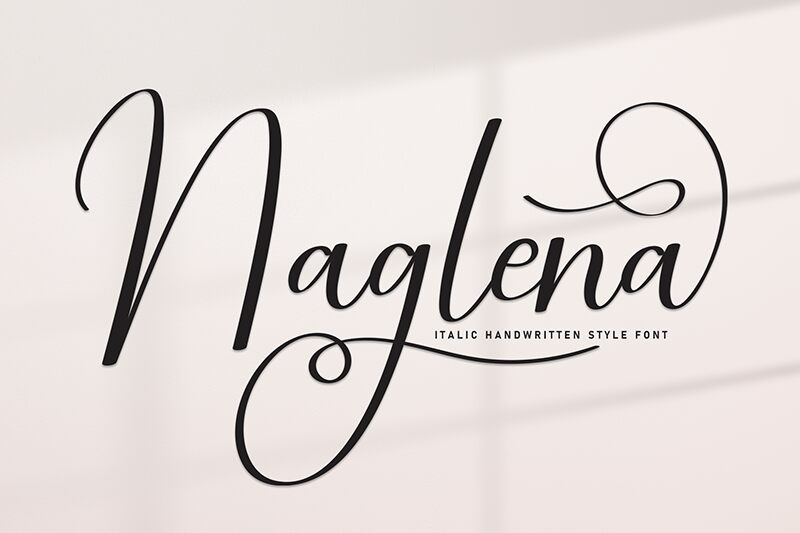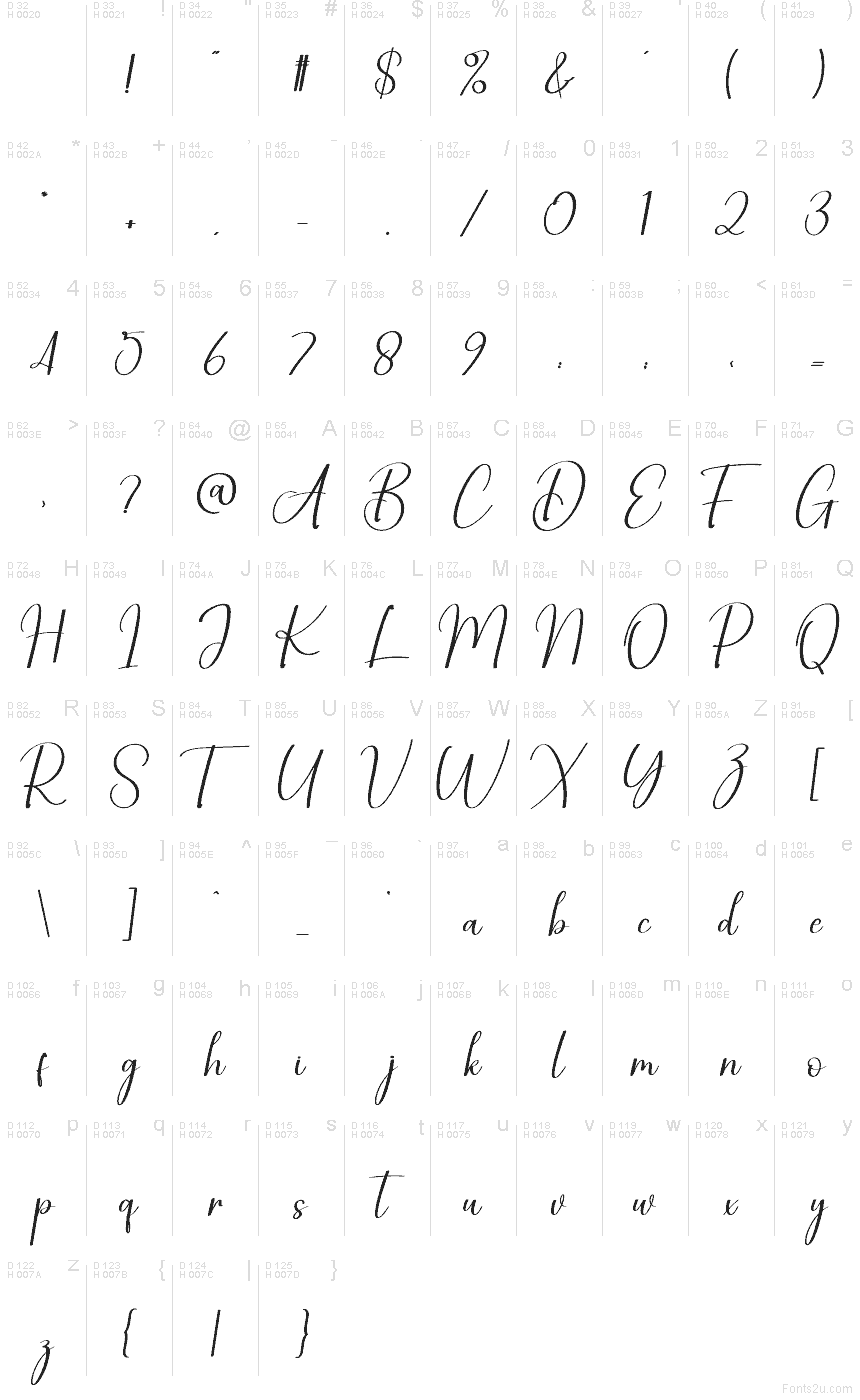
Naglena
Naglena font by Scratchones is a free handwritten script typeface that glides across the page with elegant, brush-like strokes. Its tall, flowing letters and gentle curves feel like freshly inked calligraphy—smooth, romantic, and just a bit dramatic. The rhythm between letters stays airy and graceful, giving names, short phrases, and headlines a refined, personal touch without looking messy or rushed.
Using Naglena, you can give wedding invitations, save-the-dates, boutique logos, product packaging, greeting cards, and social media quotes a polished, handwritten signature. This free font shines when it’s given room to breathe at larger sizes, while supporting text sits in a simple sans serif for contrast. Pair Naglena’s sweeping lines with plenty of white space, and it turns even a short word into a centerpiece.